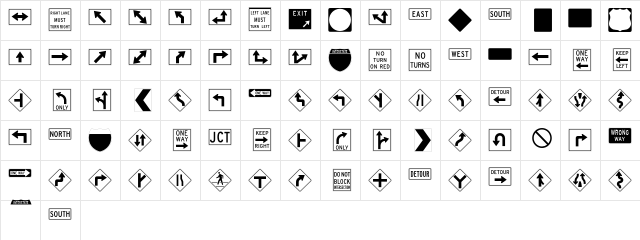
InterstatePi-One Regular
Design Context for InterstatePi-One Typeface
InterstatePi-One takes a measured approach to typography — its balanced proportions and neutral character make it a reliable workhorse for both digital and print work.